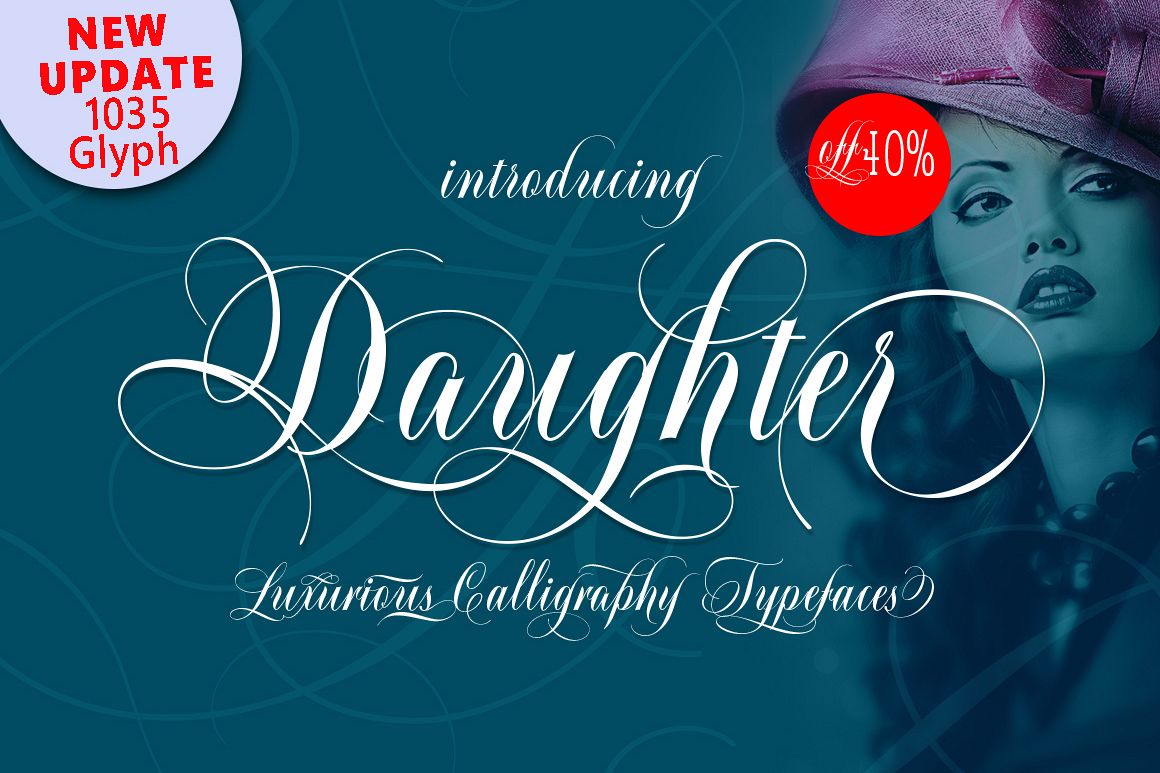
Daughter Script
I N T R O D U C I N G
LATEST UPDATE the additions Glyph from 950 Become a 1035 the overall Glyph
Daughter Script, is a calligraphy manuscript, handwritten modern and clasik, so soft, perfect for your next design, such as logos, printed quotes, invitations, cards, product packaging, headers and anything else about your imagination.Daughter Scriptallows you to create custom dynamic text. you can access by turning on; Stylistic Alternates, Swash, as well as ligatures in Photoshop, Adobe Illustrator, Adobe InDesign or through a panel of glyphs such as Adobe Illustrator, Photoshop CC, Let's switch from the reguler character into character alternative to get the text with the layout of your dreams. Daughter Script also includes glyphs, punctuation, numbers, and multilingual.Daughter Script features 1050 glyphs and has given PUA encoded (specially coded fonts), with tons of alternate characters. The pack can be accessed in full by any crafter or designer, without the requirement for extra design software, COMPATIBLE WITH SILHOUETTE & CRICUT DESIGN SPACEDaughter Script also supports in pragram, Adobe Illustrator, Adobe Photoshop, Adobe InDesign, Corel Draw X version, Microsoft Word, Language Support : Albanian, Basque, Breton, Chamorro, Danish, Dutch, English, Faroese, Finnish, French, Frisian, Galician, German, Icelandic, Italian, Malagasy, Norwegian, Portuguese, Spanish, Swedish.The Features of this fonts is: Ligature, Discritionary Ligature, Titling Alternates, Stylistic Alternates, Contextual Alternates, Swash, Titling Alternates, IINIT (initial Forms, FINA (terminal Forms) Stylistic Set (ss01 - ss20). and INUM (Lining Figures)Files included: